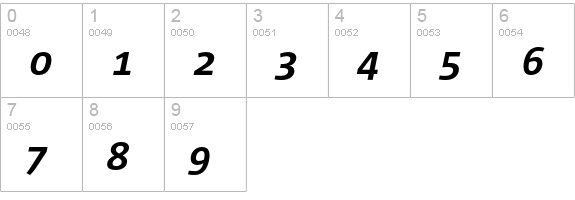
Corpid Bold Italic is a strong, high-contrast, italic variant in the Corpid typeface family \xE2\x80\x94 well suited to headlines, attention-grabbing titles, and strong calls-to-action.
Corpid Bold Italic font is a striking and modern typeface that combines boldness with elegance. Its italicized style adds a touch of sophistication to any design project. This versatile font is perfect for headlines, titles, and other prominent text elements that need to make a statement. The best part is that Corpid Bold Italic font is completely free to download at FontsMarket.com. Whether you're a graphic designer, web developer, or simply someone looking to enhance their creative projects, this font is a valuable addition to your toolkit. Don't miss out on the opportunity to elevate your designs with the sleek and impactful Corpid Bold Italic font.